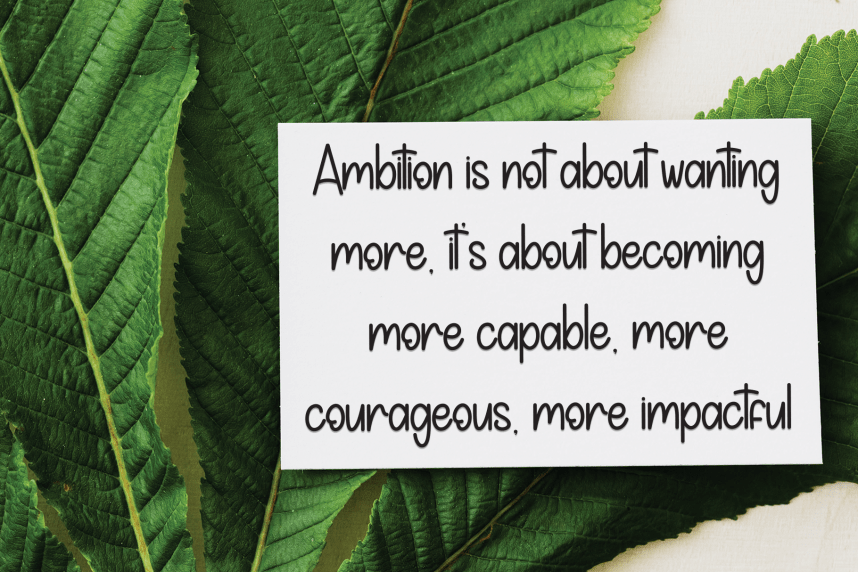
Hello Rainbow – Simple Handmade Font
Hello Rainbow – Simple Handmade Font is a sweet and friendly handwritten display font. Cute and fun, this font is ideal for writing wedding invitations, cards, or any other design that might need a playful touch!